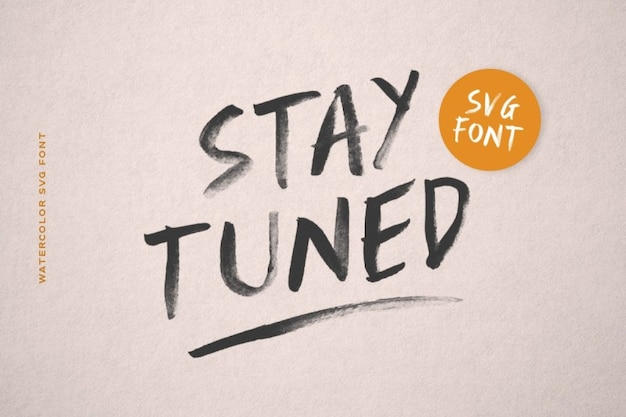
Stay Tuned Font
From Freepik, we bring you this brush typeface, called Stay Tuned. This font is perfect for your next magazine or poster if you're looking for a grunge vibe or for your future Halloween-related projects! It comes with lowercase and uppercase - feel free to randomly combine them to give your project a more natural look. Install it within a few minutes, it's so easy!